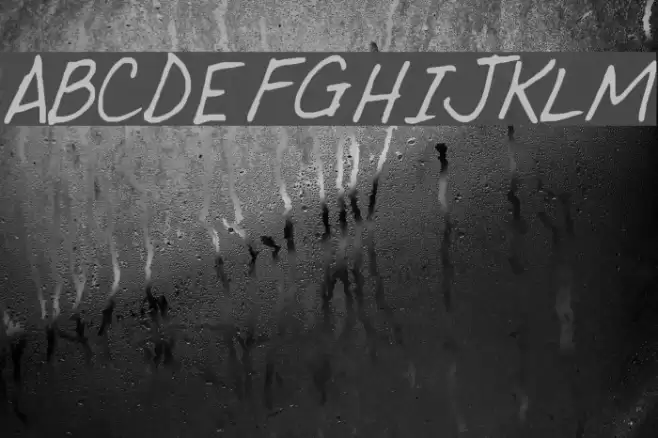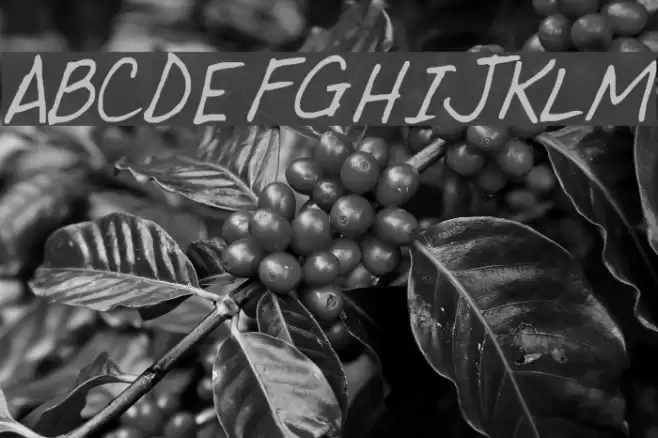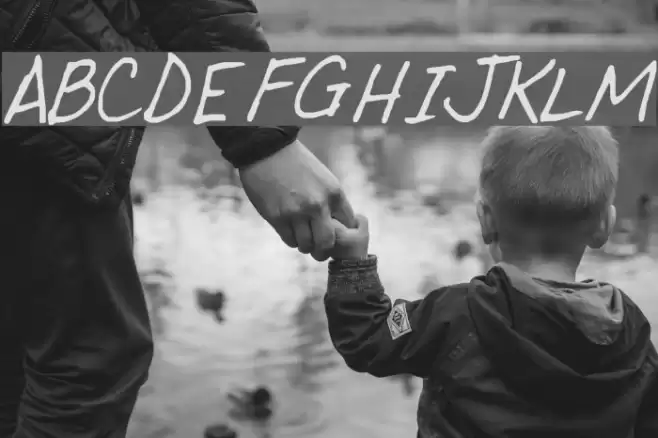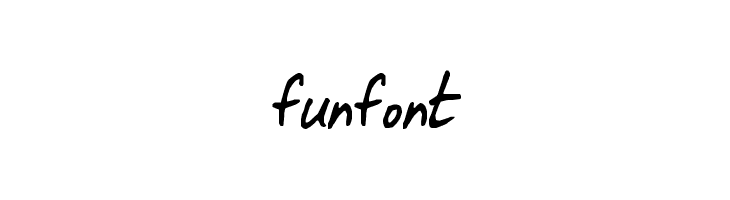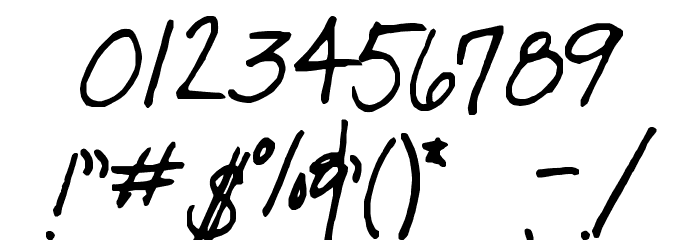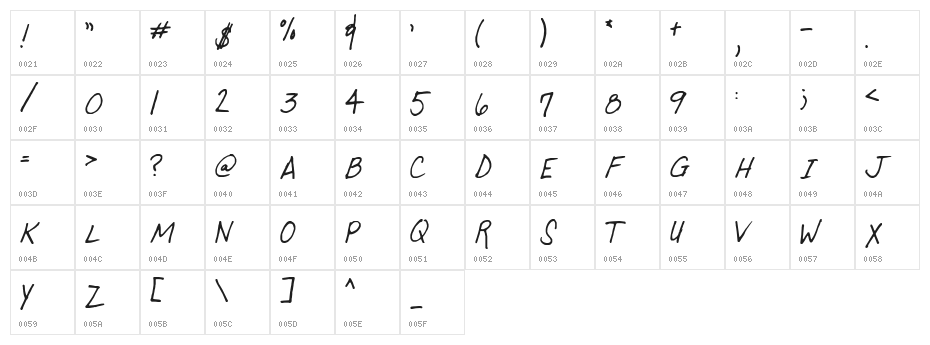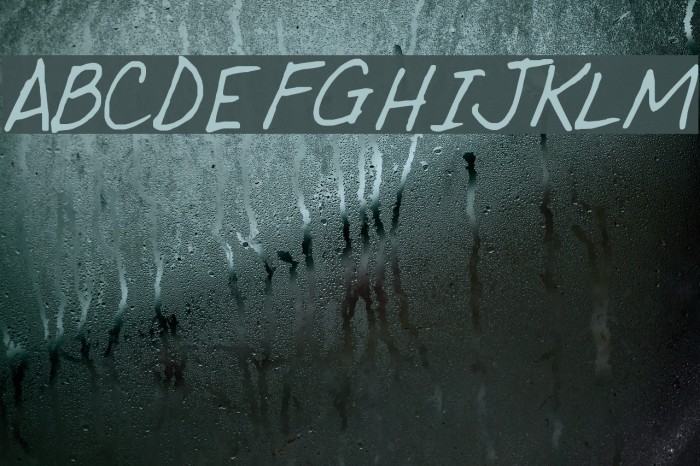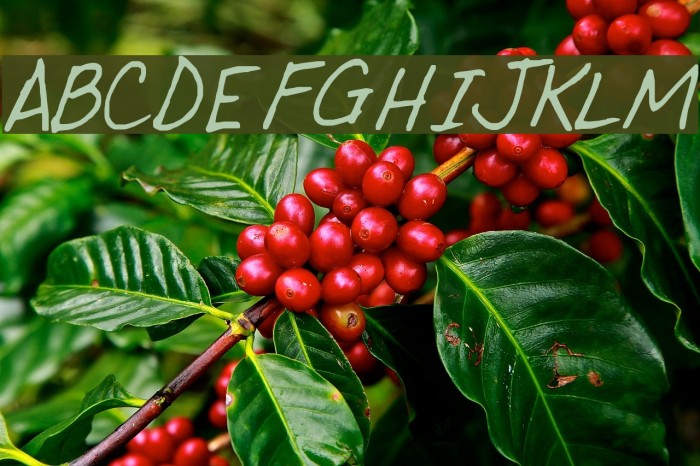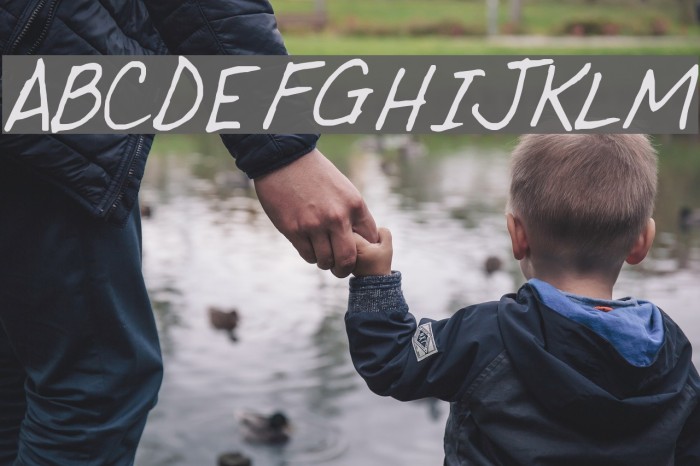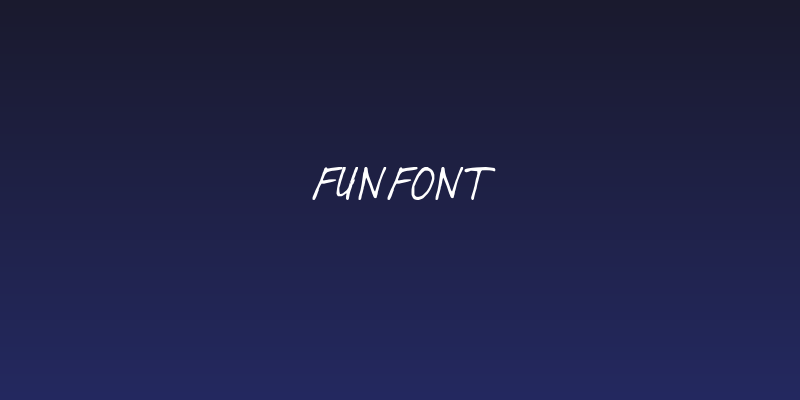
funfont Font
funfont Description
This font exudes a playful and casual handwritten style, characterized by its dynamic and slightly irregular strokes that mimic the natural flow of handwriting. The letters are slightly slanted, adding to the informal and relaxed feel. The uppercase and lowercase letters maintain a consistent style, with rounded edges and varying stroke widths that give the font a lively and energetic appearance. The numerals and special characters are crafted with the same playful touch, ensuring a cohesive look across all characters. This font is perfect for projects that require a personal and approachable touch, such as greeting cards, invitations, or informal branding materials.
A playful and casual handwritten font with dynamic strokes from Uncategorized fonts.
- Proposed Projects: Ideal for greeting cards, invitations, informal branding, and personal projects.
- Overall Style: Casual
- Use Case: Headlines, Informal text, Personal projects